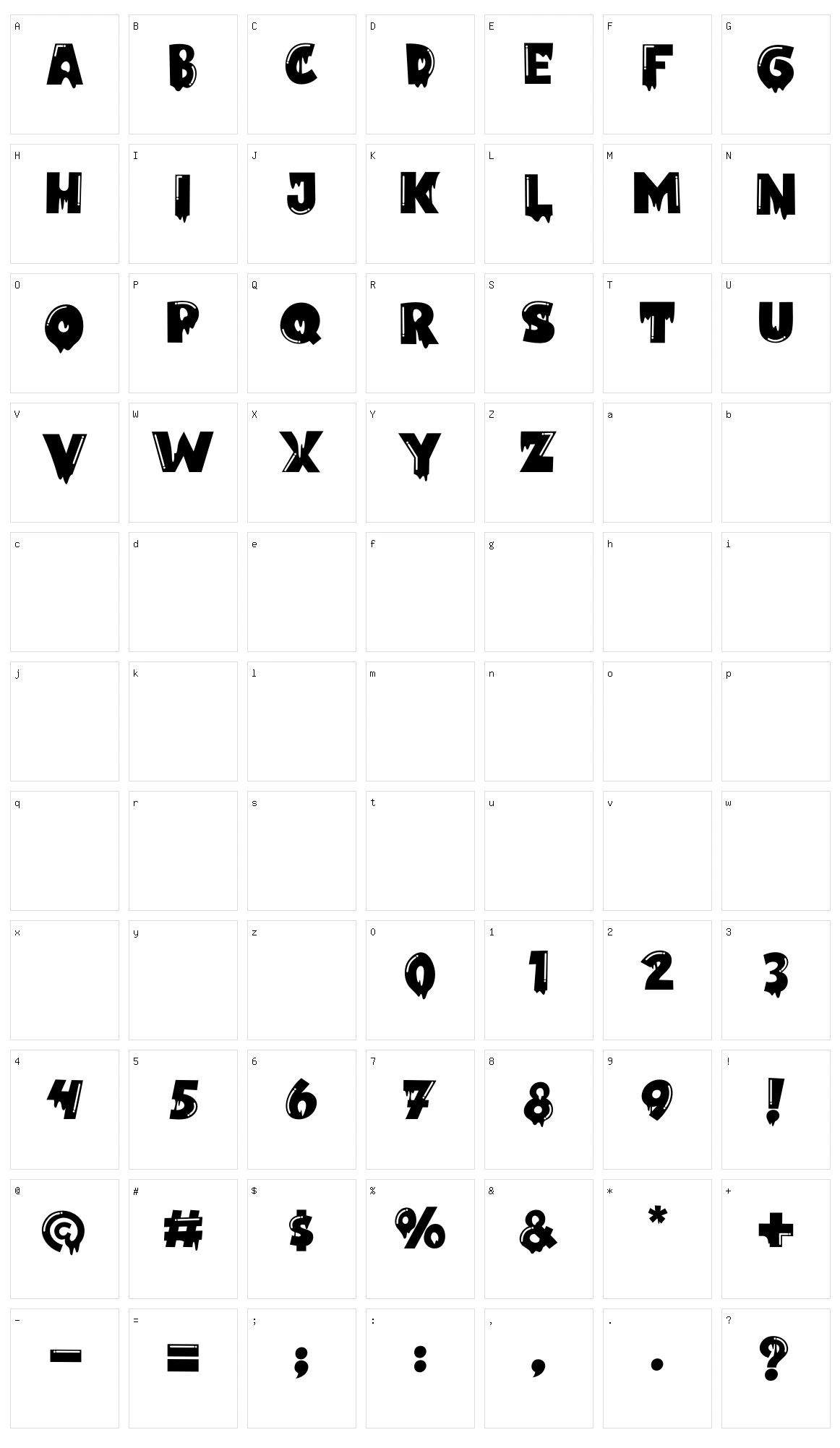
The free font Lukalama is carefully designed by Vable Studio, showcasing a thoughtful balance of creativity and usability and falls under the Horror font style. When you download the ZIP file, it contains only 20.92 KB of font files, making it lightweight and quick to download. Please review the license details below to understand permitted usage and distribution rights. If license information is not available, we recommend using this font for personal projects only or contacting the author directly for commercial usage permissions.